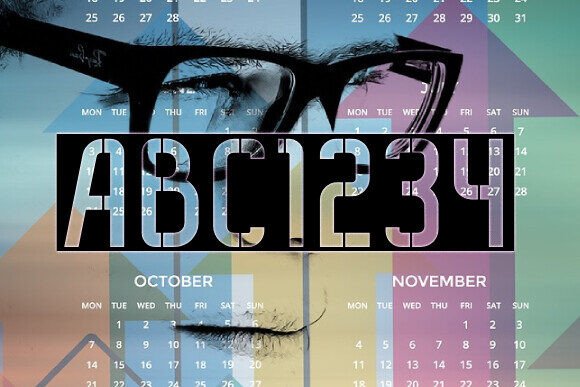
The Perfect Blend of Time and Design
Have you ever found yourself stuck in the middle of a creative project, desperately searching for the right font to bring your vision to life? The moment when everything comes together, and your design starts to shine – that’s the moment we’re aiming for.
Enter Hour and Date Font, a bold and futuristic typeface that’s designed to make a statement. With its striking geometric design, this font is perfect for creating standout headlines, event posters, and tech-inspired graphics that demand attention. Whether you’re working on modern digital designs or retro-futuristic aesthetics, Hour and Date Font is the ideal choice to make your project unforgettable.
As a designer, you know the importance of choosing the right font to convey your message. Hour and Date Font offers a unique industrial style that’s sure to set your work apart from the crowd, making it a valuable addition to any design arsenal.
Key Features of Hour and Date Font
- Unique Characteristic: The font features a distinctive, modern design with clean lines and a minimalist aesthetic, making it ideal for digital displays and print materials.
- Font Style: The font comes in a single style, with both uppercase and lowercase letters available, providing a clean and consistent look for various design projects.
Hour and Date Font Review
Overall, I found the Hour and Date Font to be a clean and elegant addition to any design project. ✨ The font’s modern aesthetic and subtle curves make it a great choice for a variety of applications, from digital displays to printed materials.
Limits and Challenges
While the Hour and Date Font is well-suited for many applications, there are some limitations to be aware of. ⚠️ For example, the font may not be ideal for situations where a large amount of text needs to be displayed, as the hour and date indicators can be somewhat bulky.
- ⚠️ Limited character set: The font only includes hour and date indicators, which may limit its use in certain situations.
- ⚠️ Not ideal for large text displays: The font’s bulky indicators may not be suitable for situations where a large amount of text needs to be displayed.
In terms of overall impression, I would say that the Hour and Date Font is a solid choice for designers looking to add a touch of modernity to their projects. While it may have some limitations, the font’s clean design and high level of customization make it a great option for a variety of applications.
The Hour and Date Font is commonly used in designs that require a sense of time or date, such as:
- Event invitations and schedules.
- News and media designs.
- Calendars and planners.